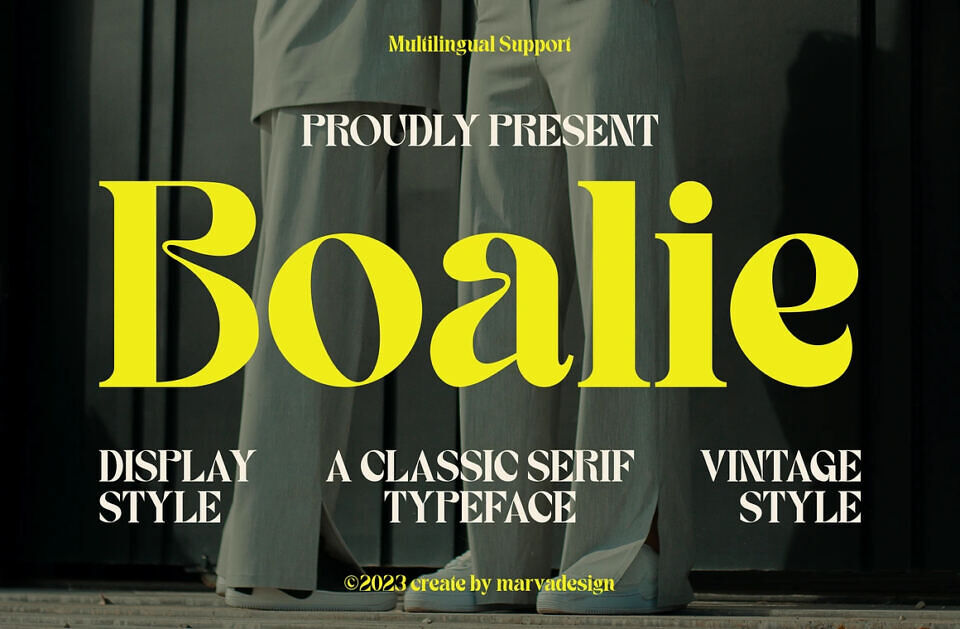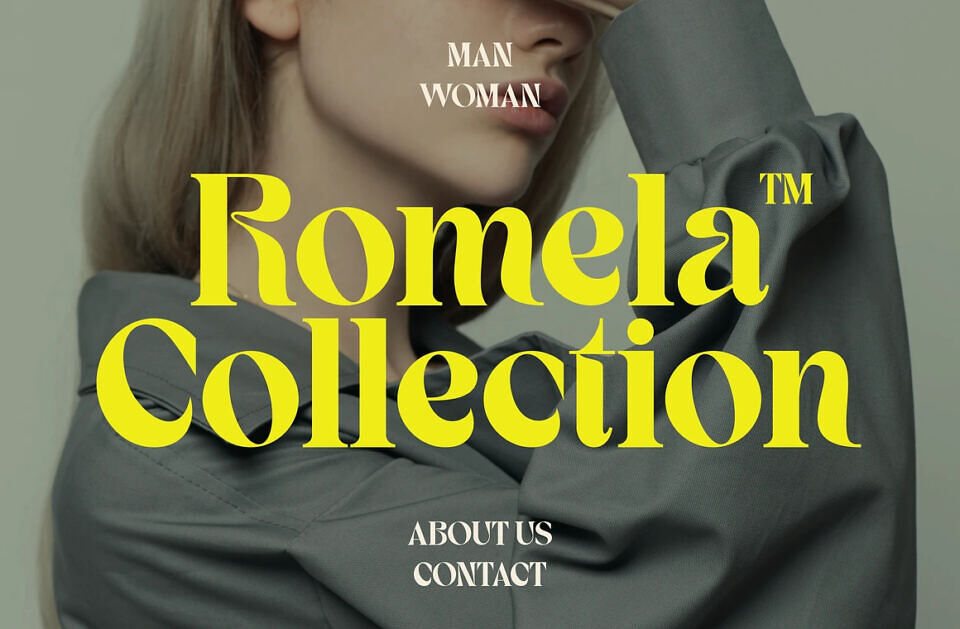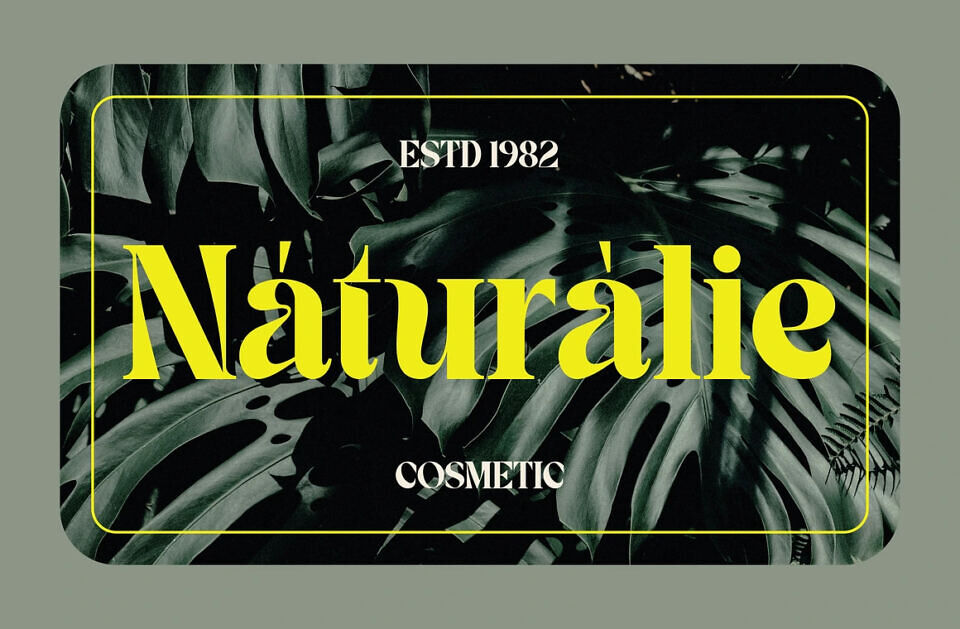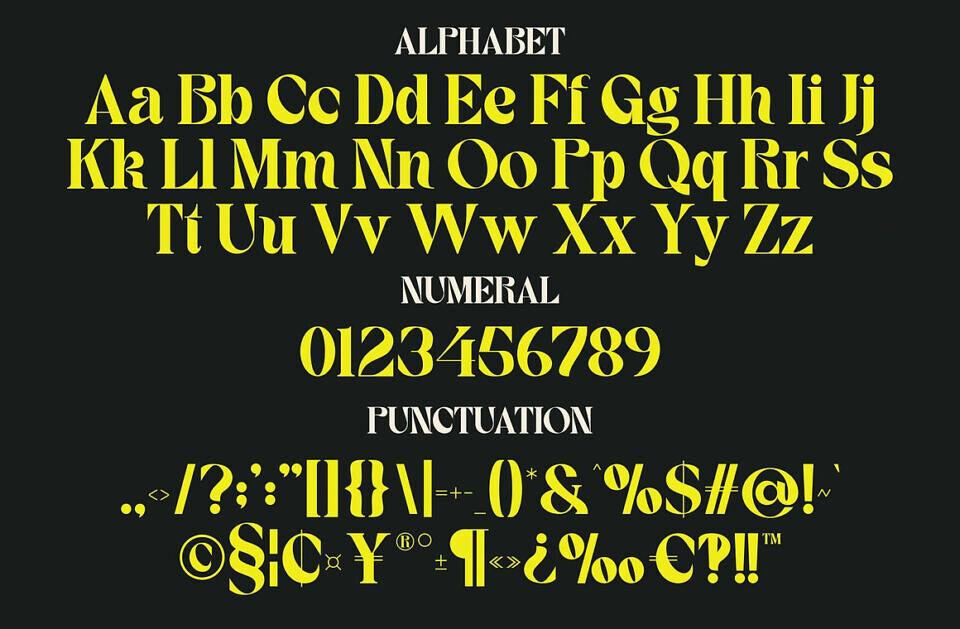
Boalie Font
Boalie is a Modern and authentic bold display font by Marvadesign. The font is suitable for any branding project like logo, Template Design, Product and many more. outstanding in a wide range of contexts.